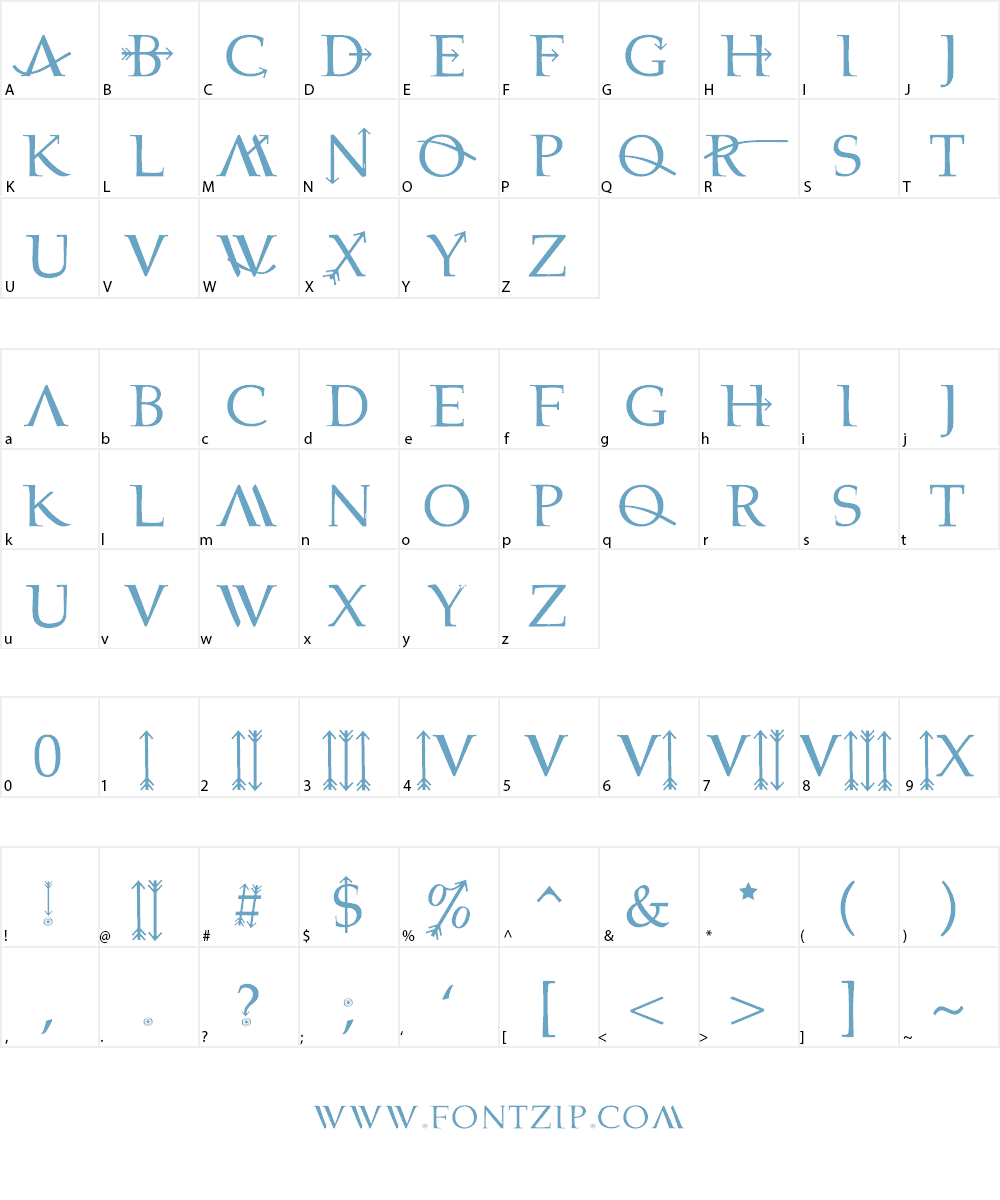
A font based on the logo of the Arrow tv-series. I only had 4 letters (the logo) to use as reference, so I had to make the rest from imagination. Inluded also some funny elements. Lowercase letters are the basic ones, whereas uppercase letters are more fancy and they feature arrows, bows etc.